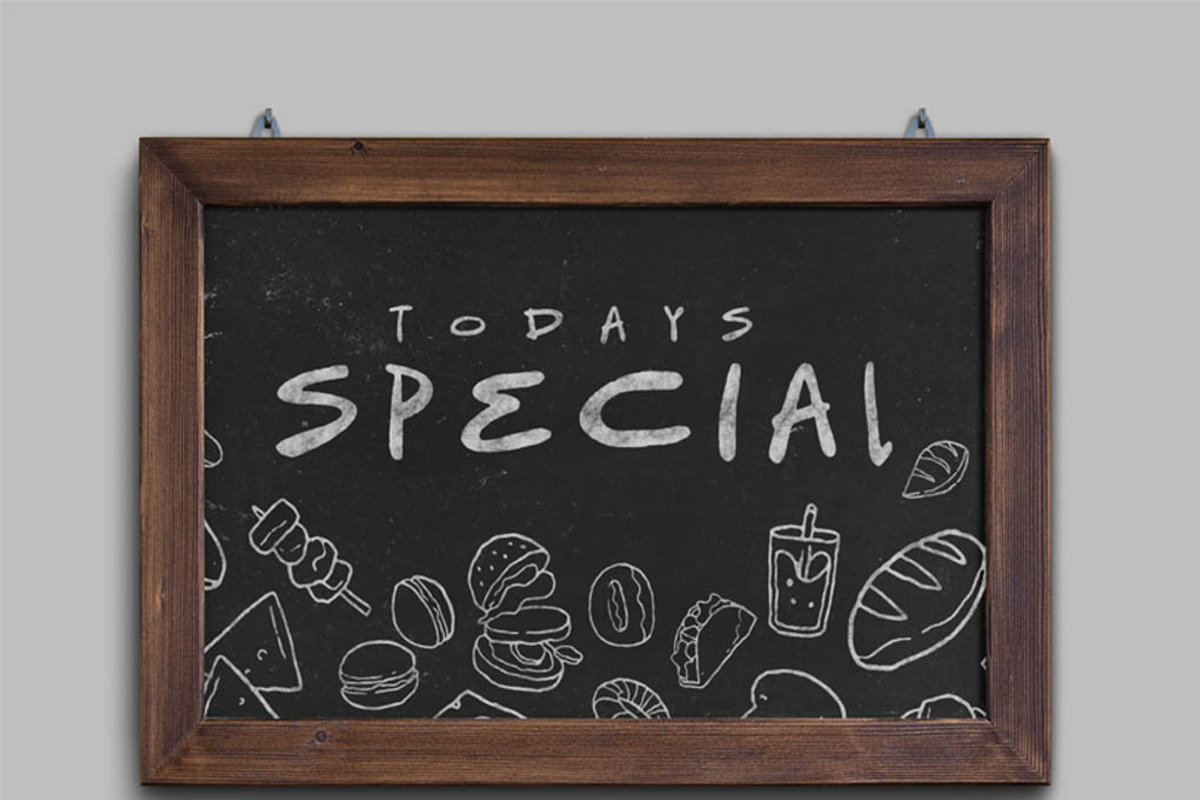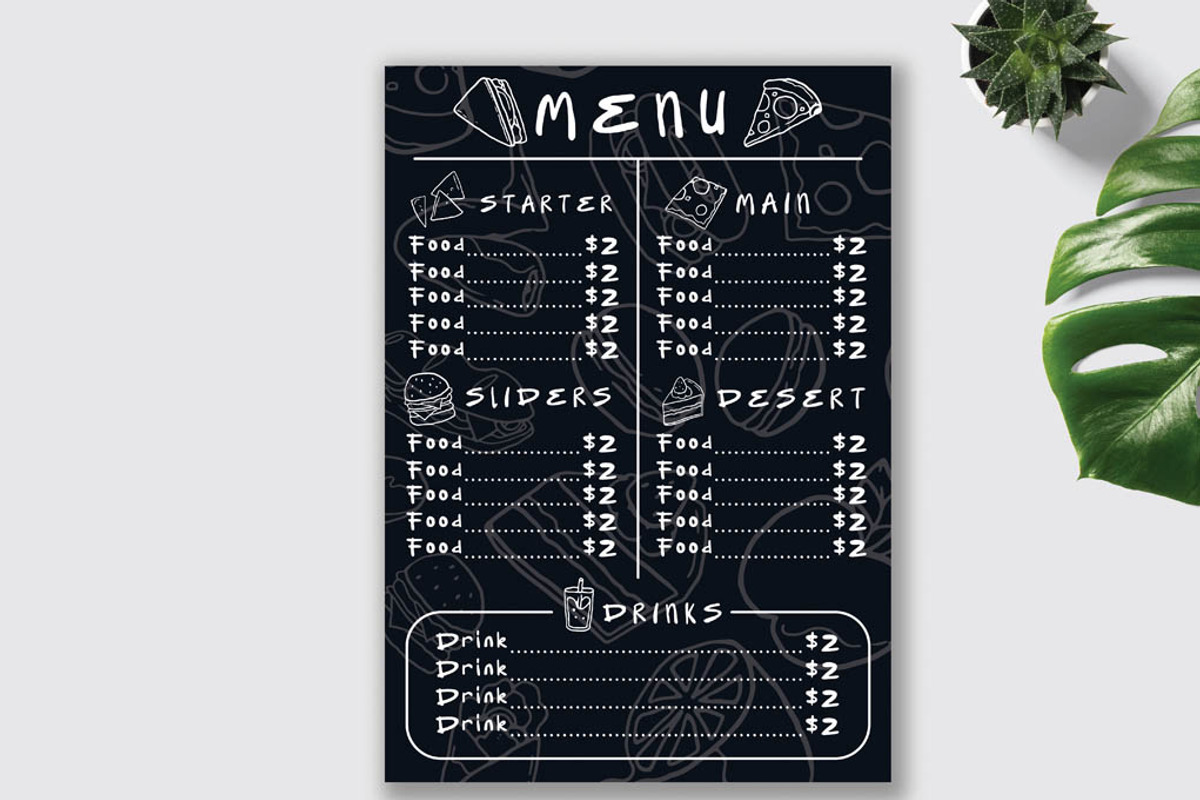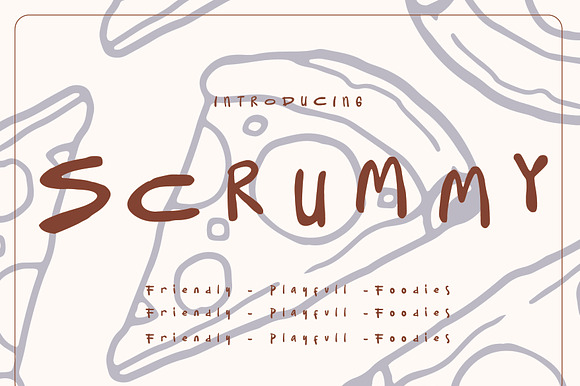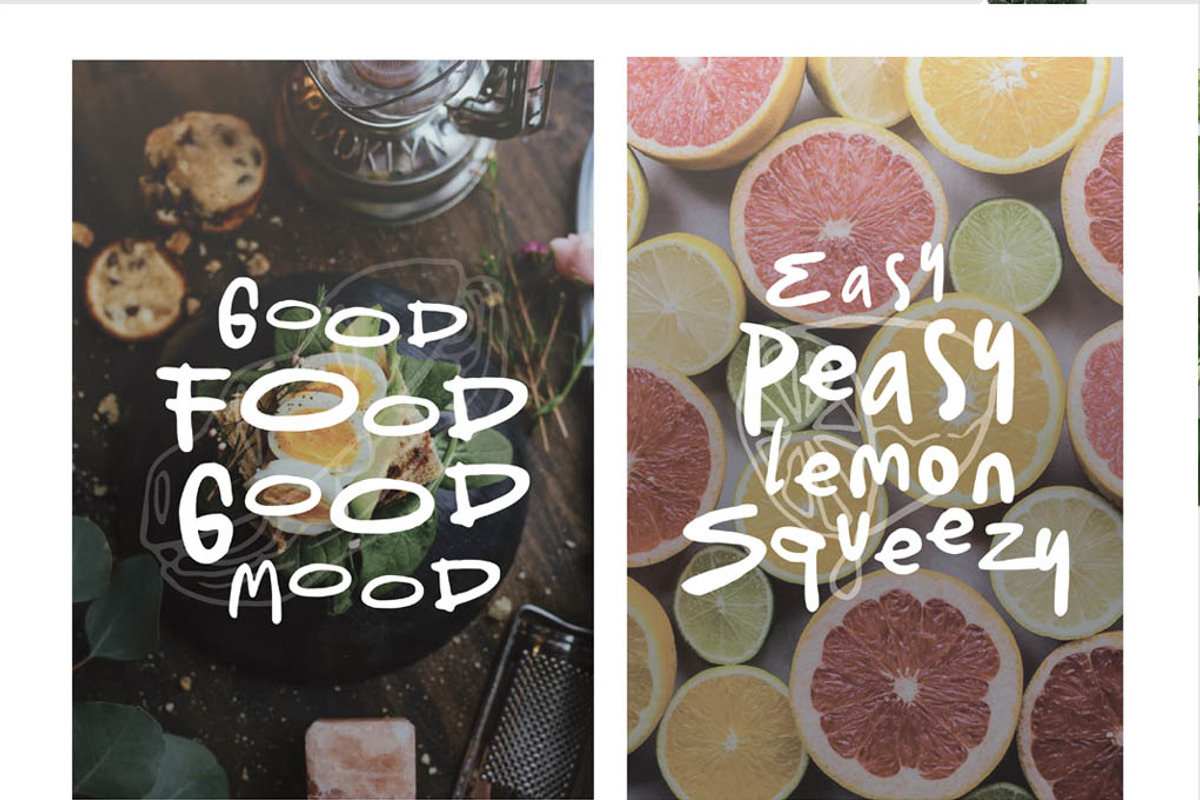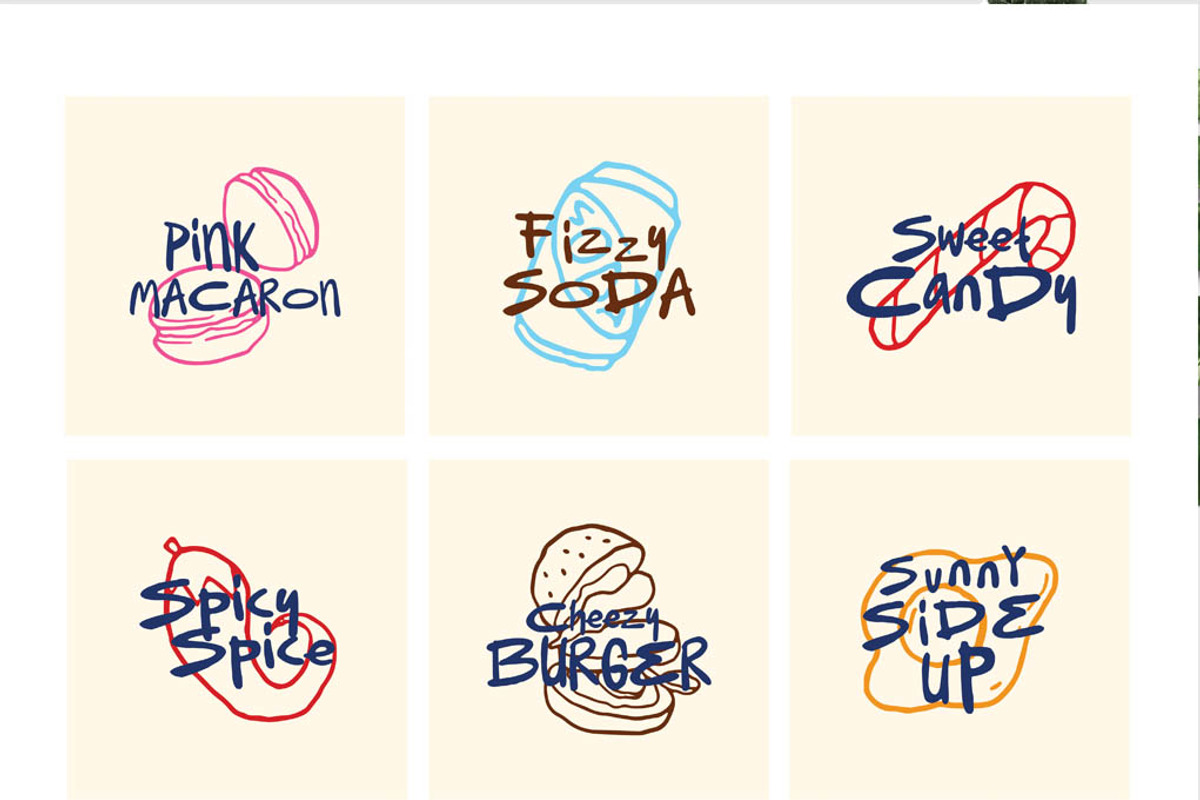
Scrummy Foodies Font
Introducing. "SCRUMMY FONT" Foodies - playfull - friendly for display
Scrummy Foodies Font by Randomtypesht fits naturally into Branding, posters, packaging, typography.